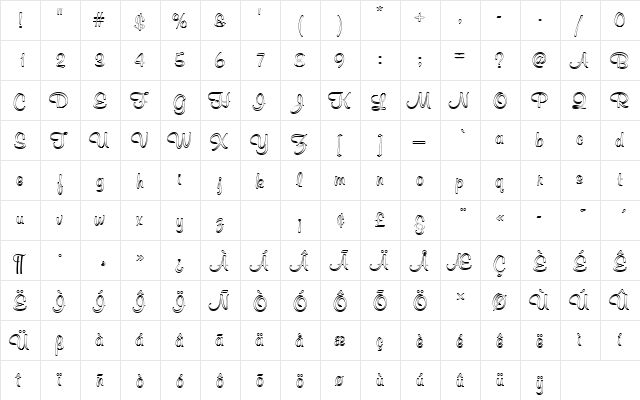
MurrayHilDOu1 Regular Font Preview
MurrayHilDOu1 Regular
Design Context for MurrayHilDOu1 Typeface
MurrayHilDOu1 is a composed and adaptable typeface that performs quietly and consistently across a wide range of design contexts.